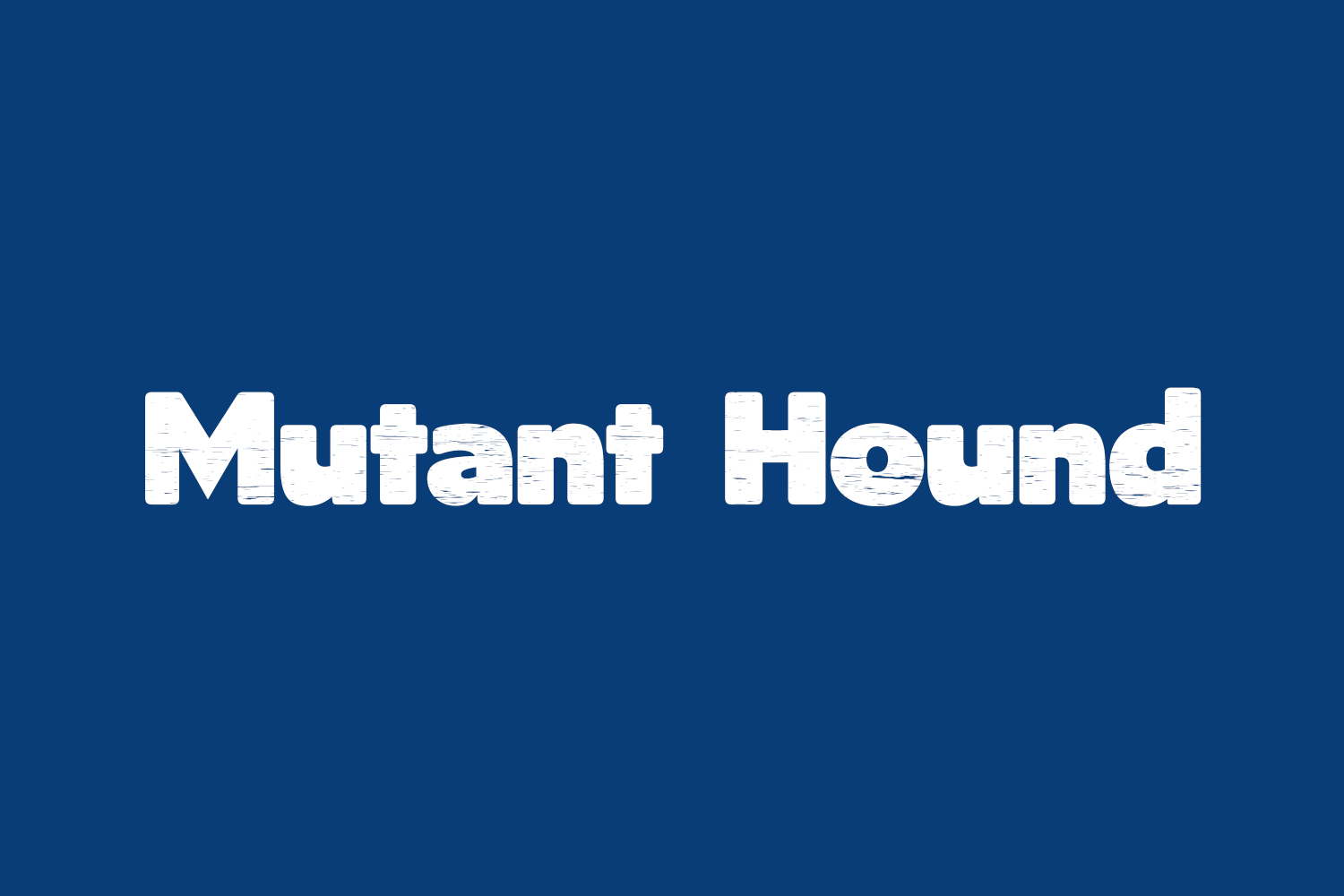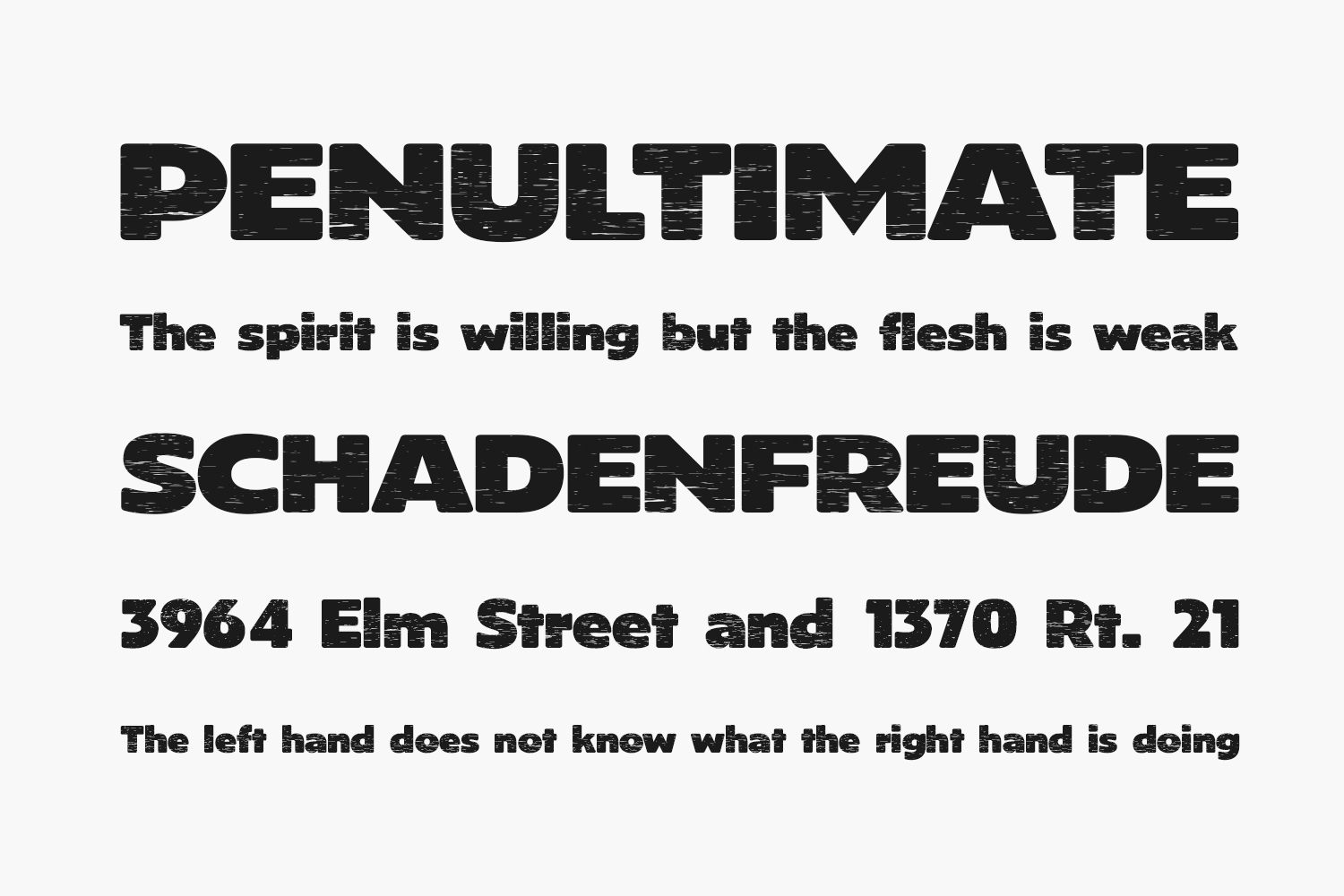
Mutant Hound Free Font is a comic and retro display font that evokes the playful and energetic style of classic superhero comics. Its bold and chunky letters with fun halftone textures create a vintage look that is perfect for posters, packaging, and designs that need a touch of nostalgia.